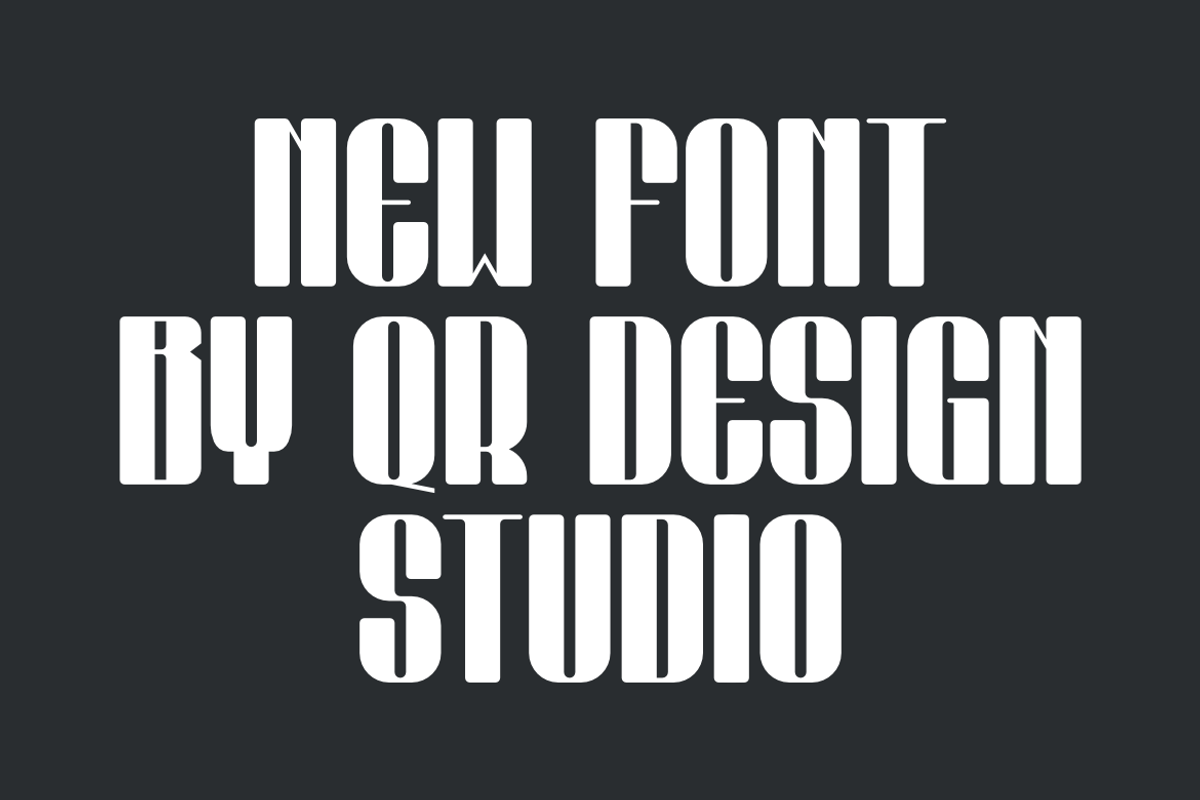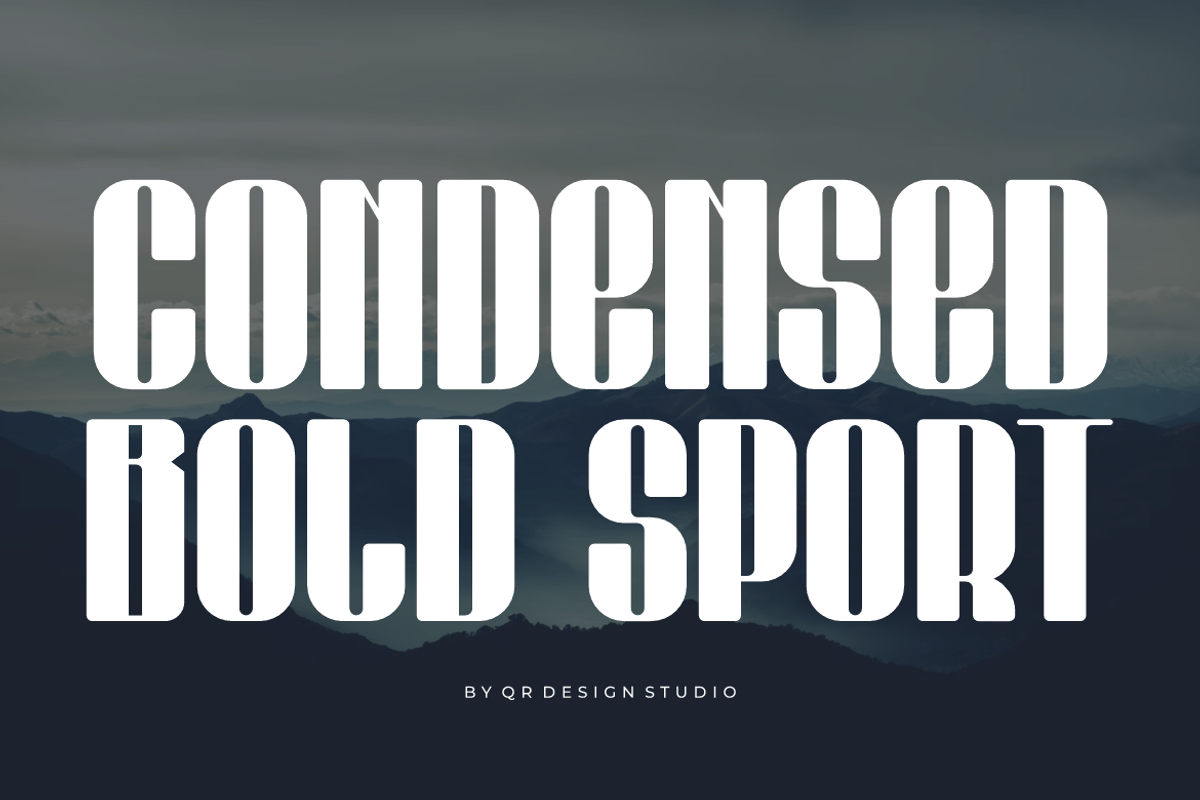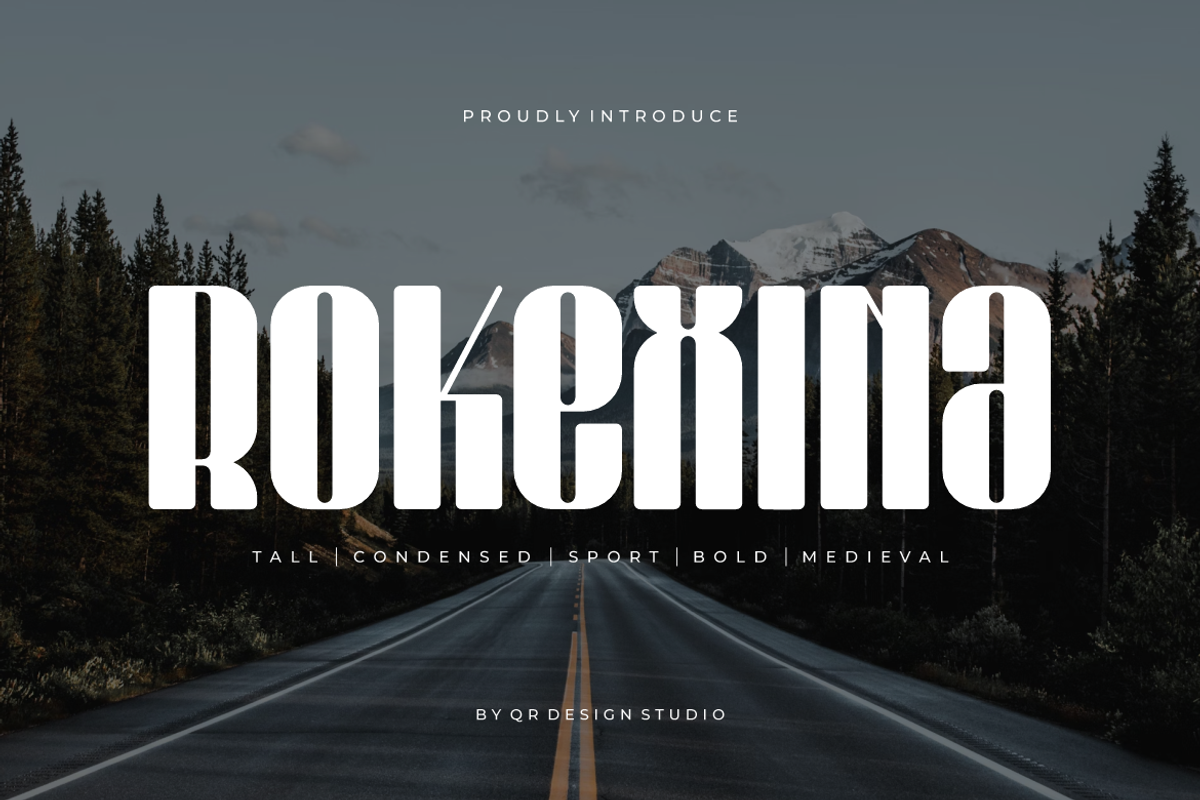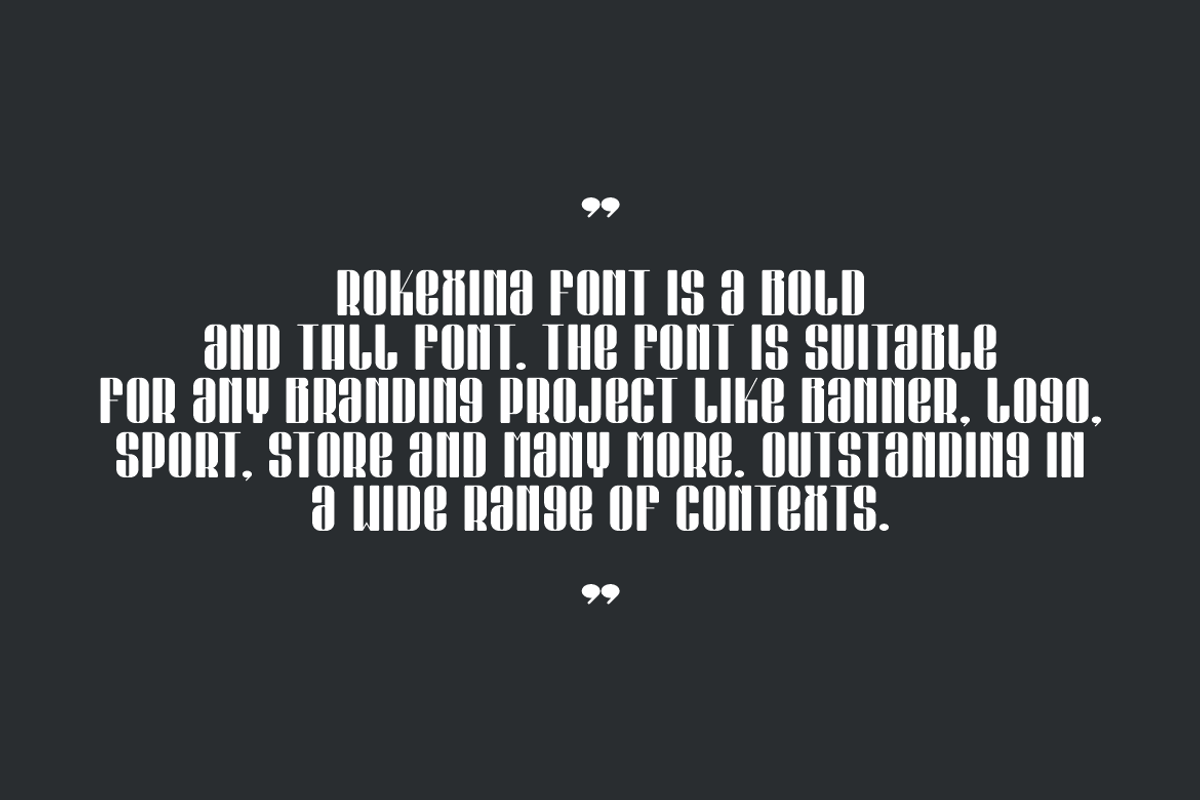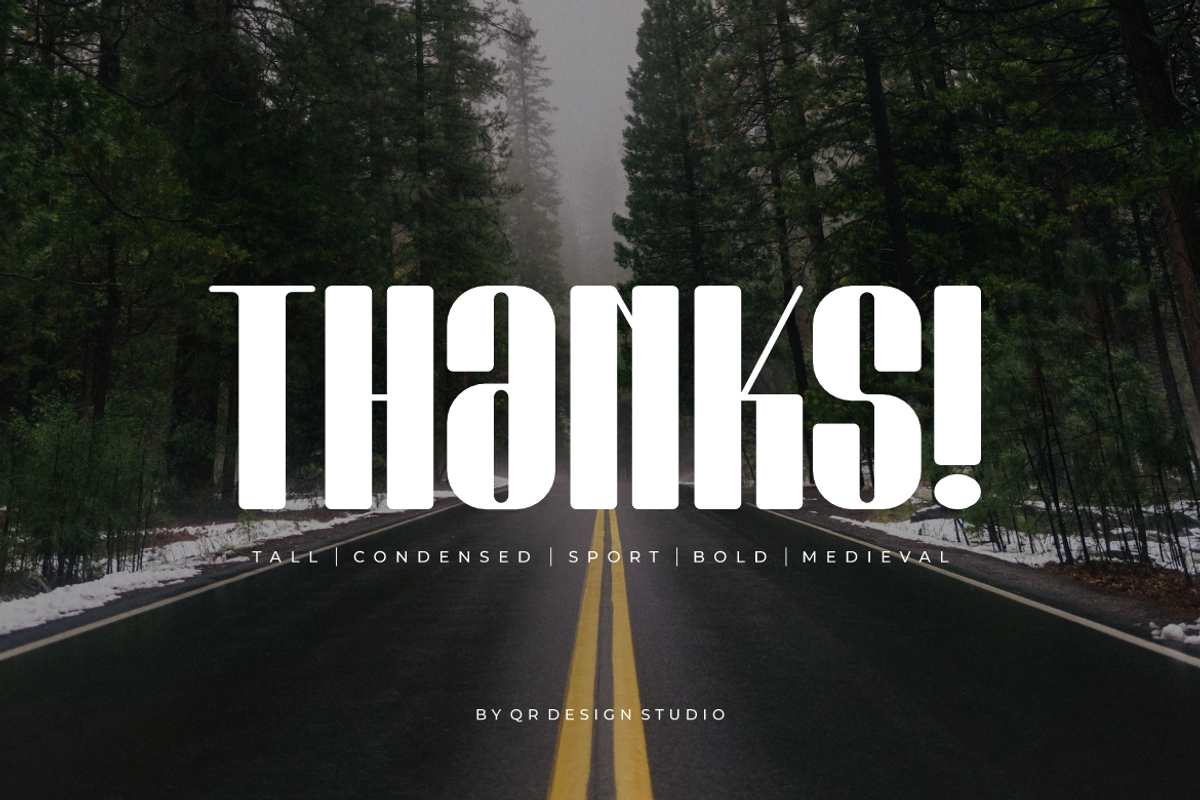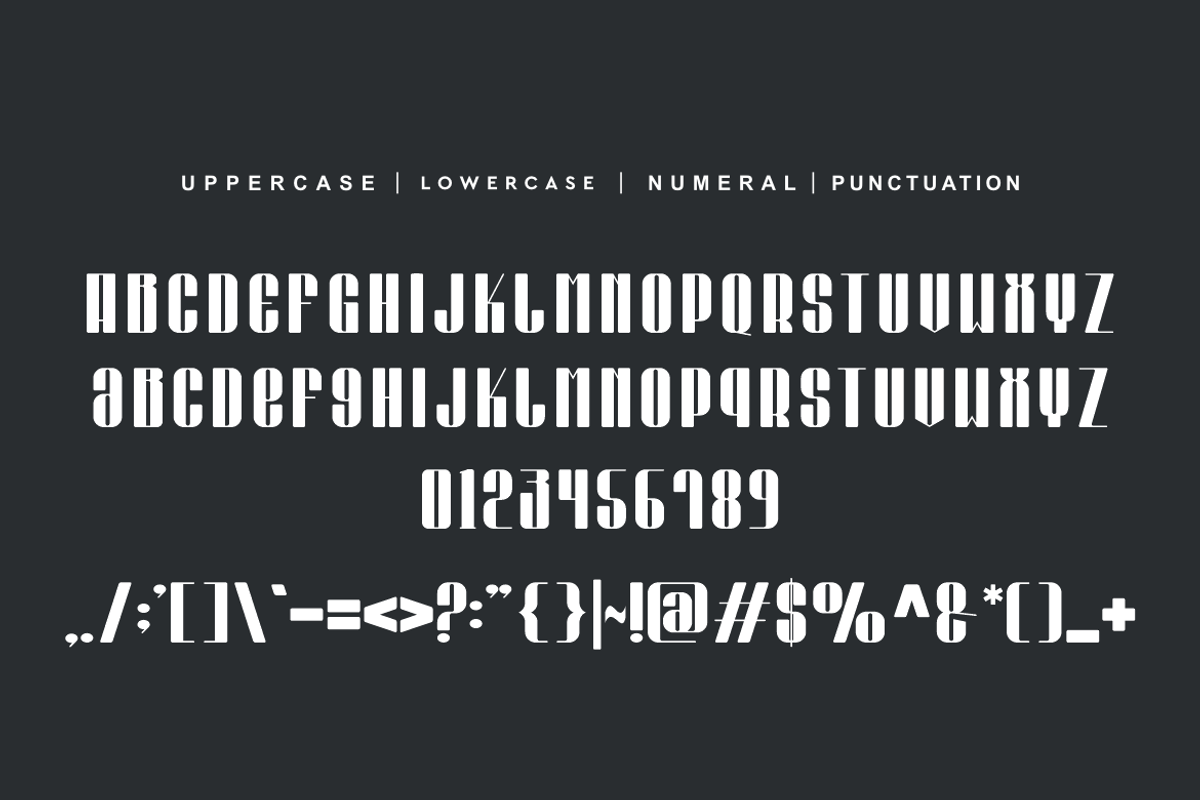
Rokexina - Tall & Condensed Font
Rokexina - Tall & Condensed Font is a bold and authentic display font. The font is suitable for any branding project like poster, logo, sport, and many more. Outstanding in a wide range of contexts.